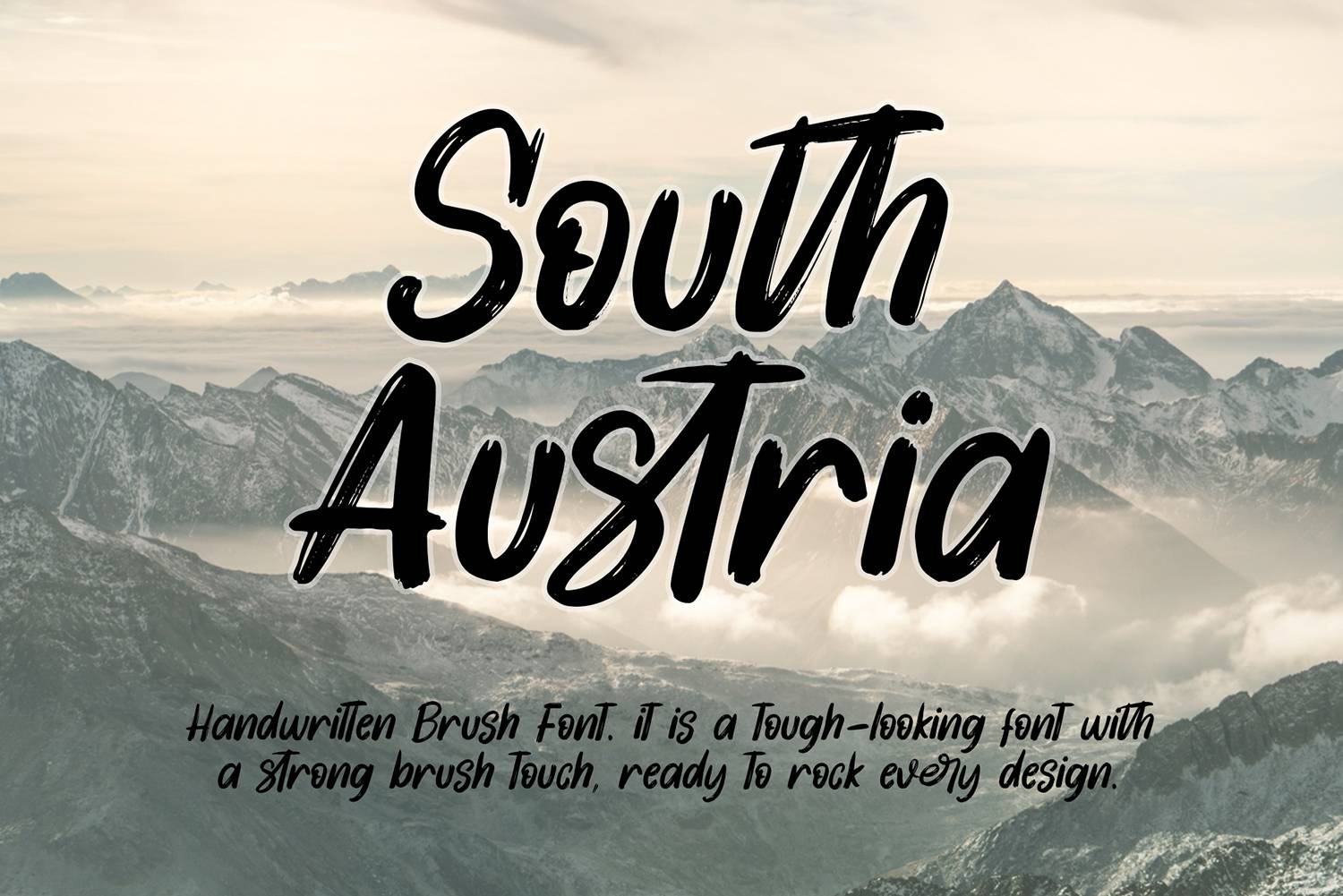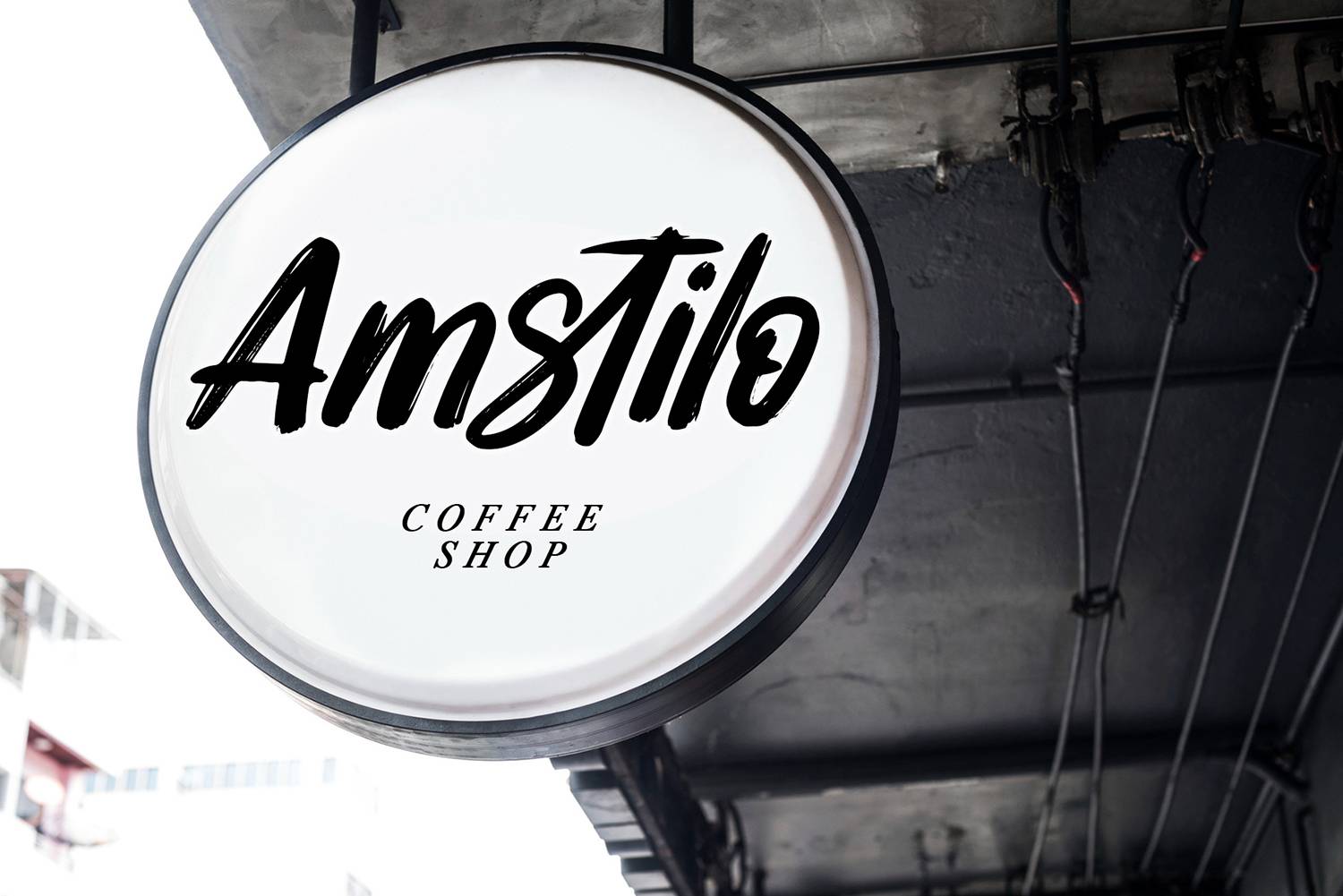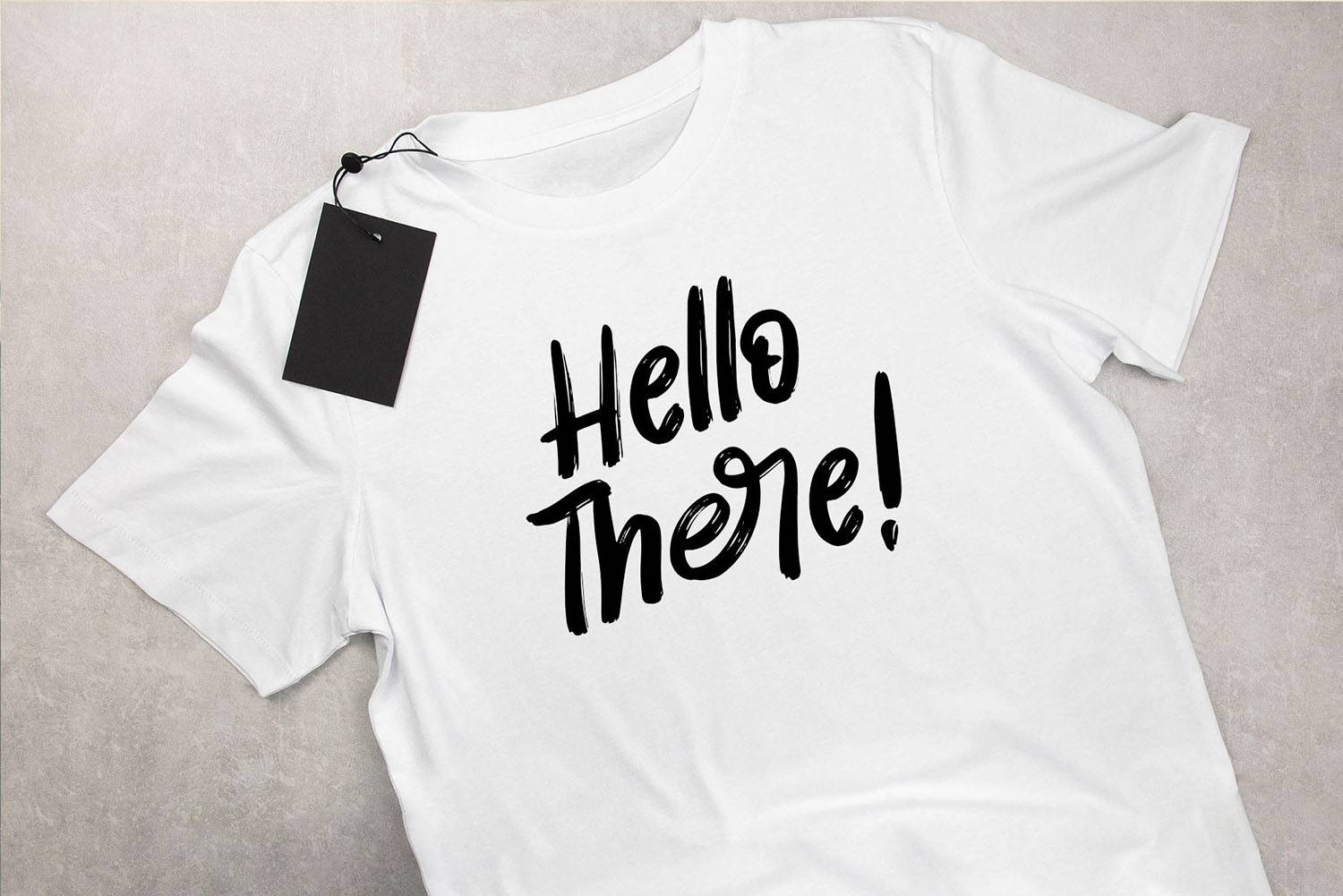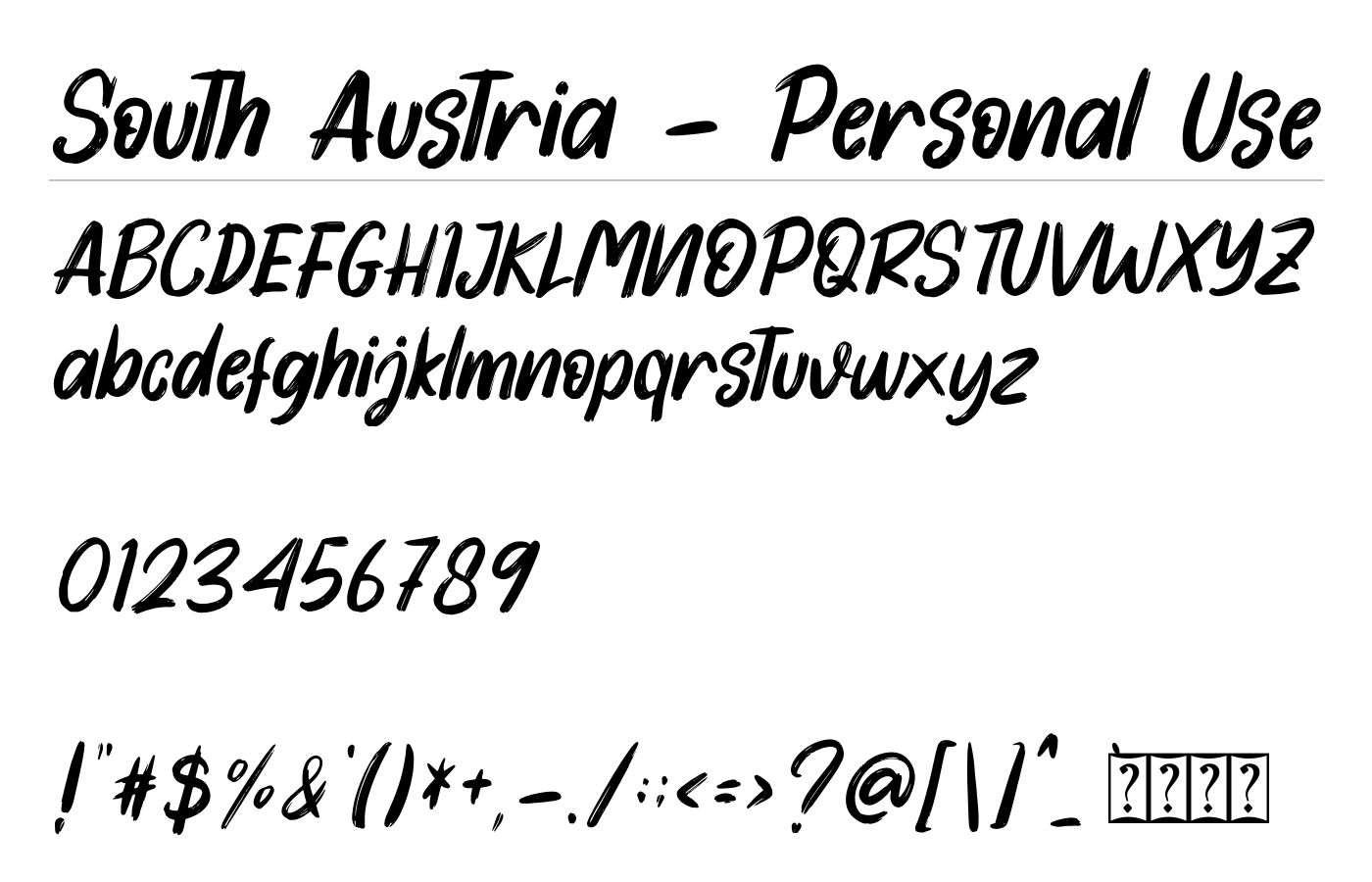
South Austria is a lively, handwritten script font with a bold, brushstroke style that conveys energy and warmth. Its casual yet confident lettering makes it perfect for informal branding, creative projects, and eye-catching headlines, bringing a personal and artistic touch to any design.
South Austria Font
About South Austria Font
| Font family | South Austria Font |
| Designer | Annisa Nur Afni |